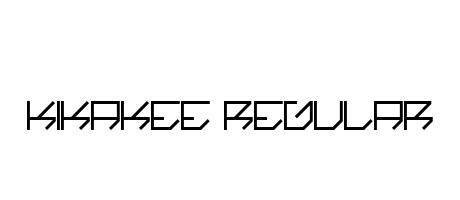
Kikakee
By P. Brigham
Kikakkee Regular is a bold, geometric sans-serif typeface. Its characters are constructed from sharp, angular lines, creating a strong, almost robotic aesthetic. The letters are monolinear, consistent in weight, giving it a clean, modern feel. It conveys a sense of precision and futuristic design.